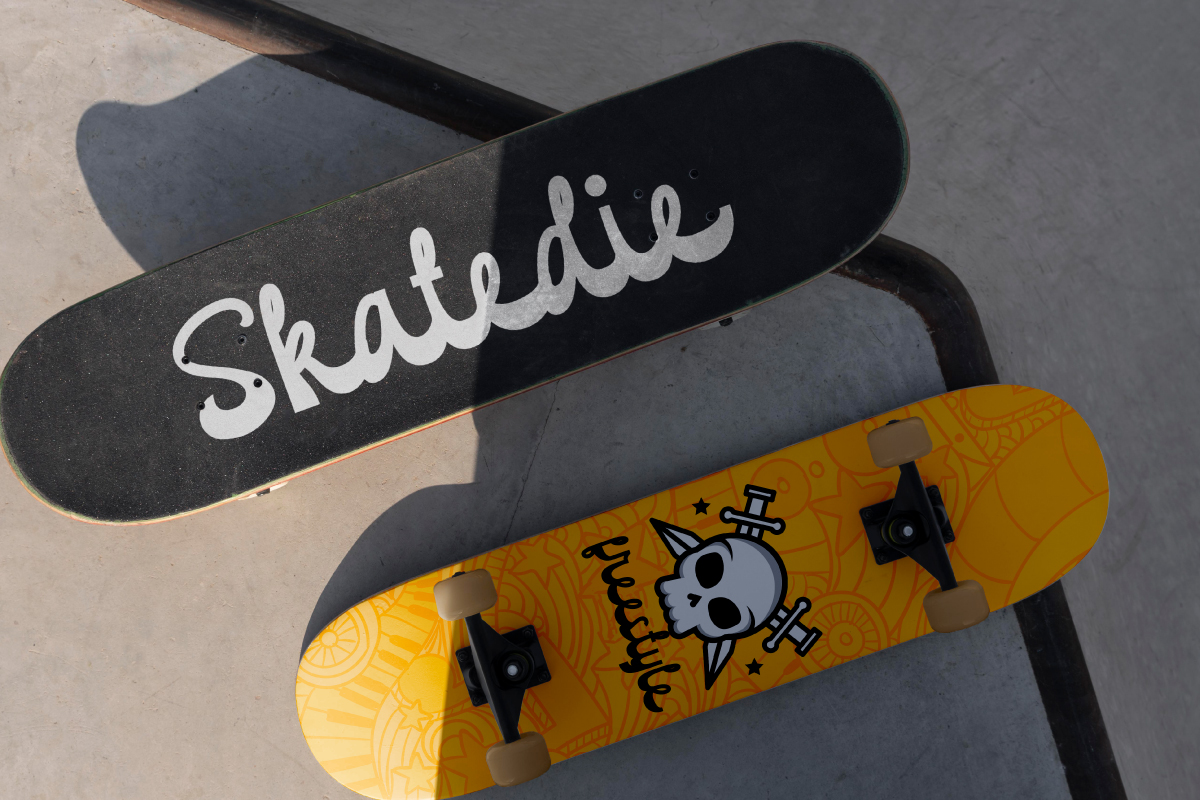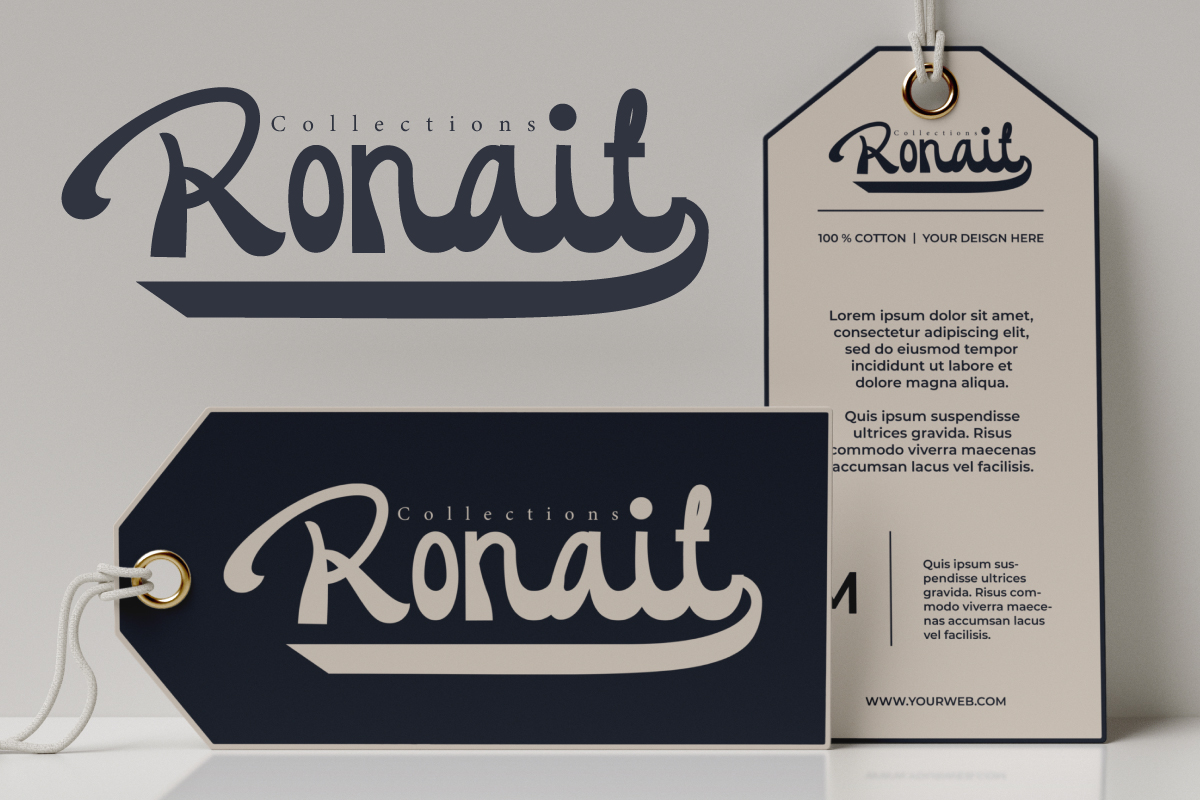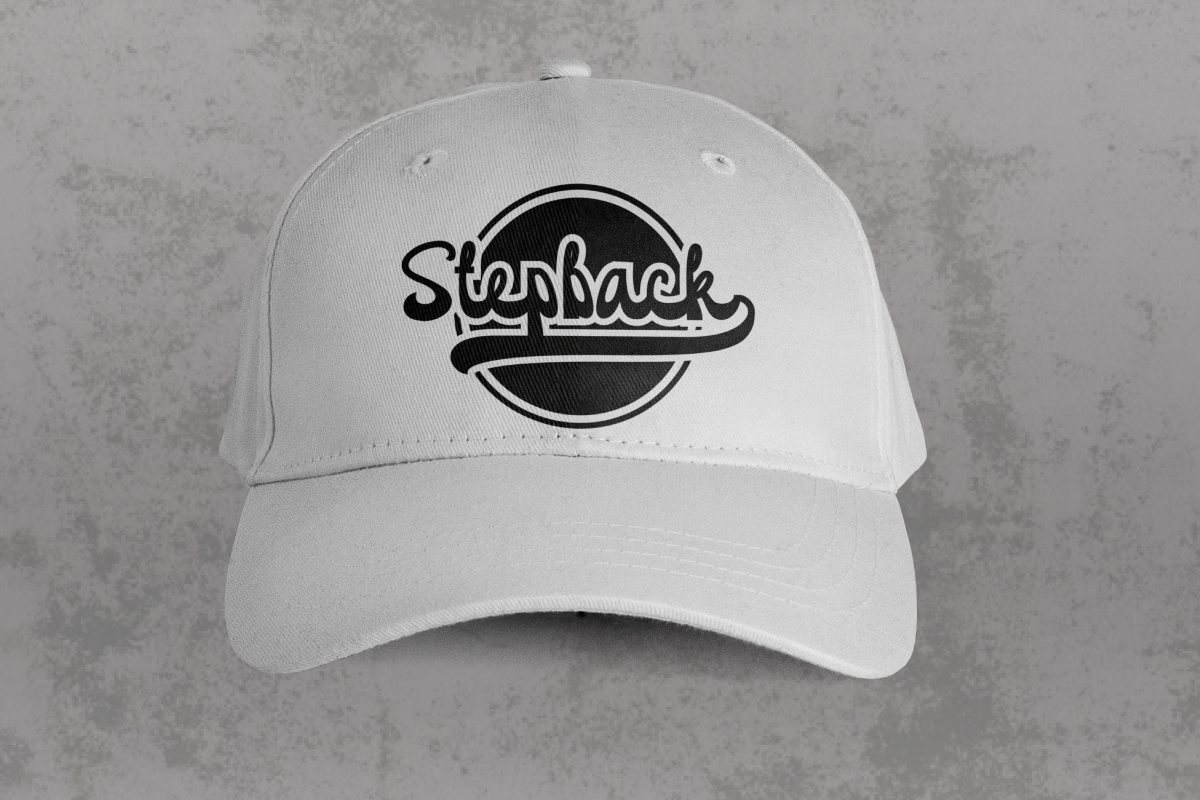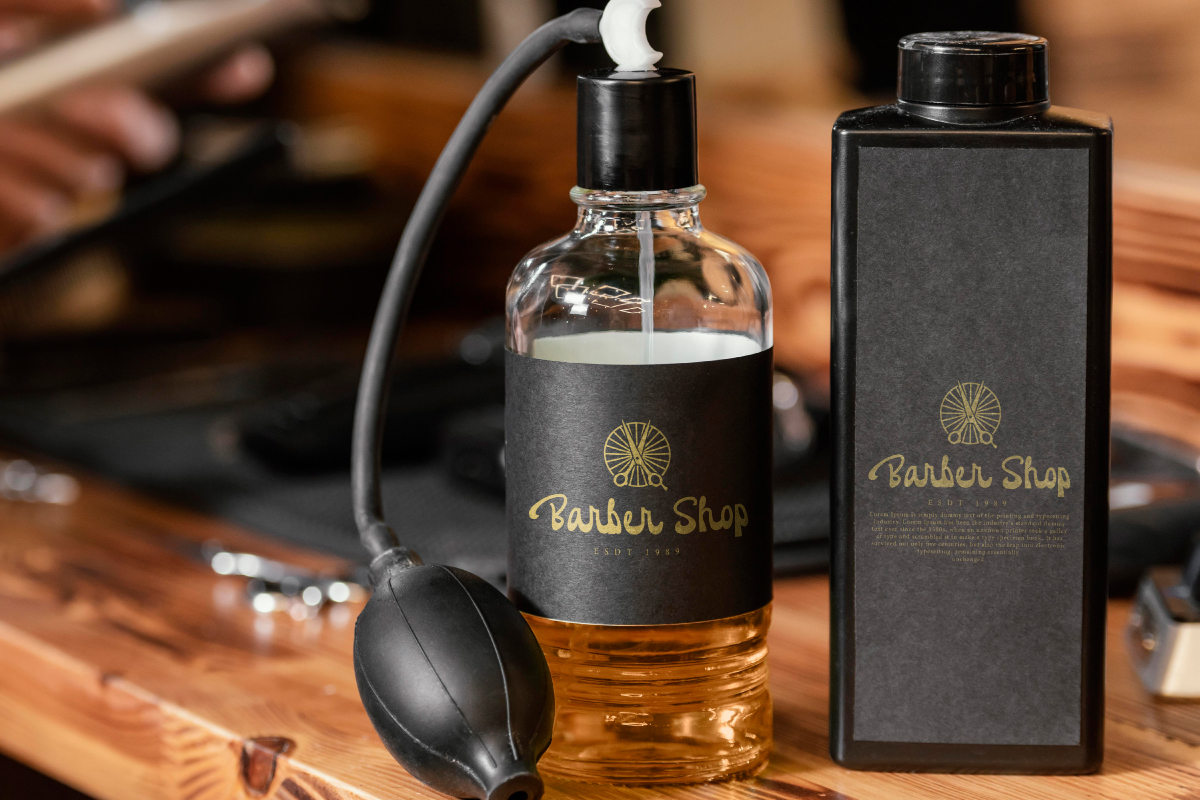
Darkish Font
Darkish Script Font is a bold brush display font. This font is a development of a more modern vintage style so that it can be used in various designs, such as brochure, content, cover, custom design, invitation, label, poster, product packaging, quote, screen printing, signage, sticker, website, etc.